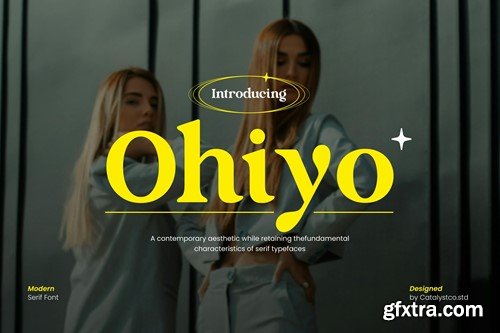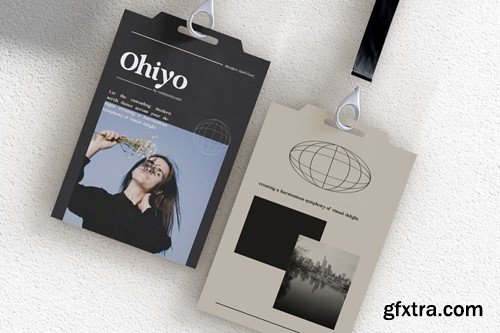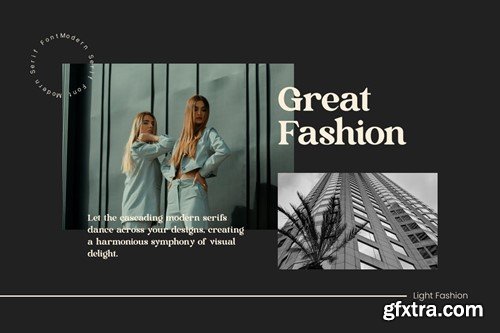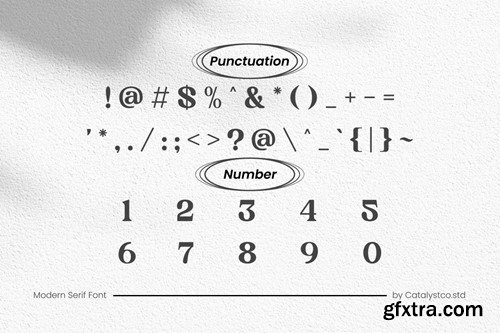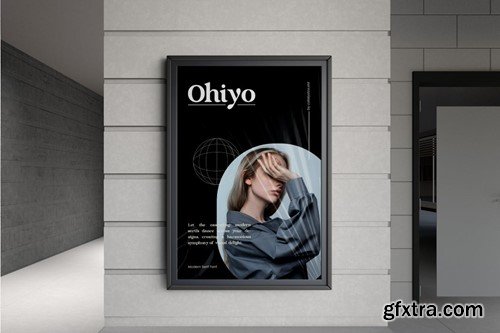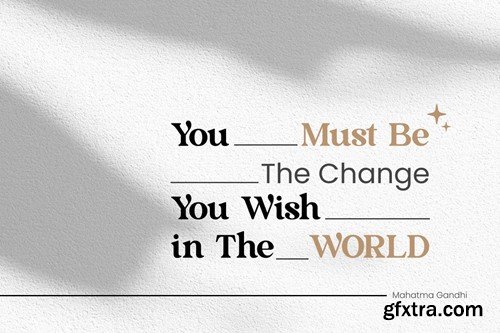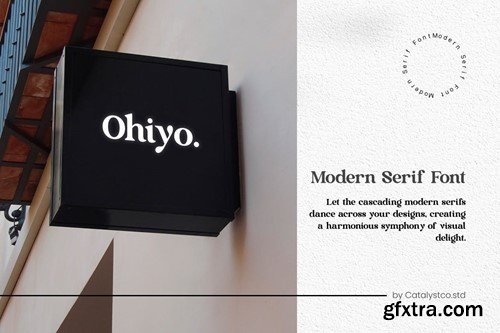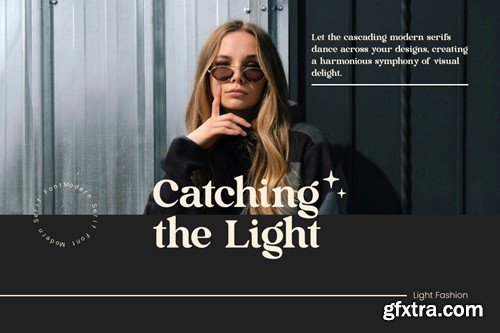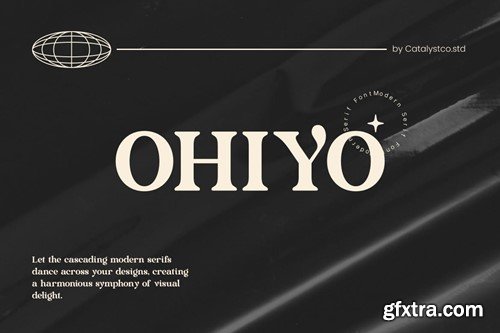
Ohiyo Modern Serif Font 7CMKZVR
Ohiyo Modern Serif Font
Ohiyo Modern Serif Font typeface excellent used for the manufacture quote text, logotype, header magazine, and many more.